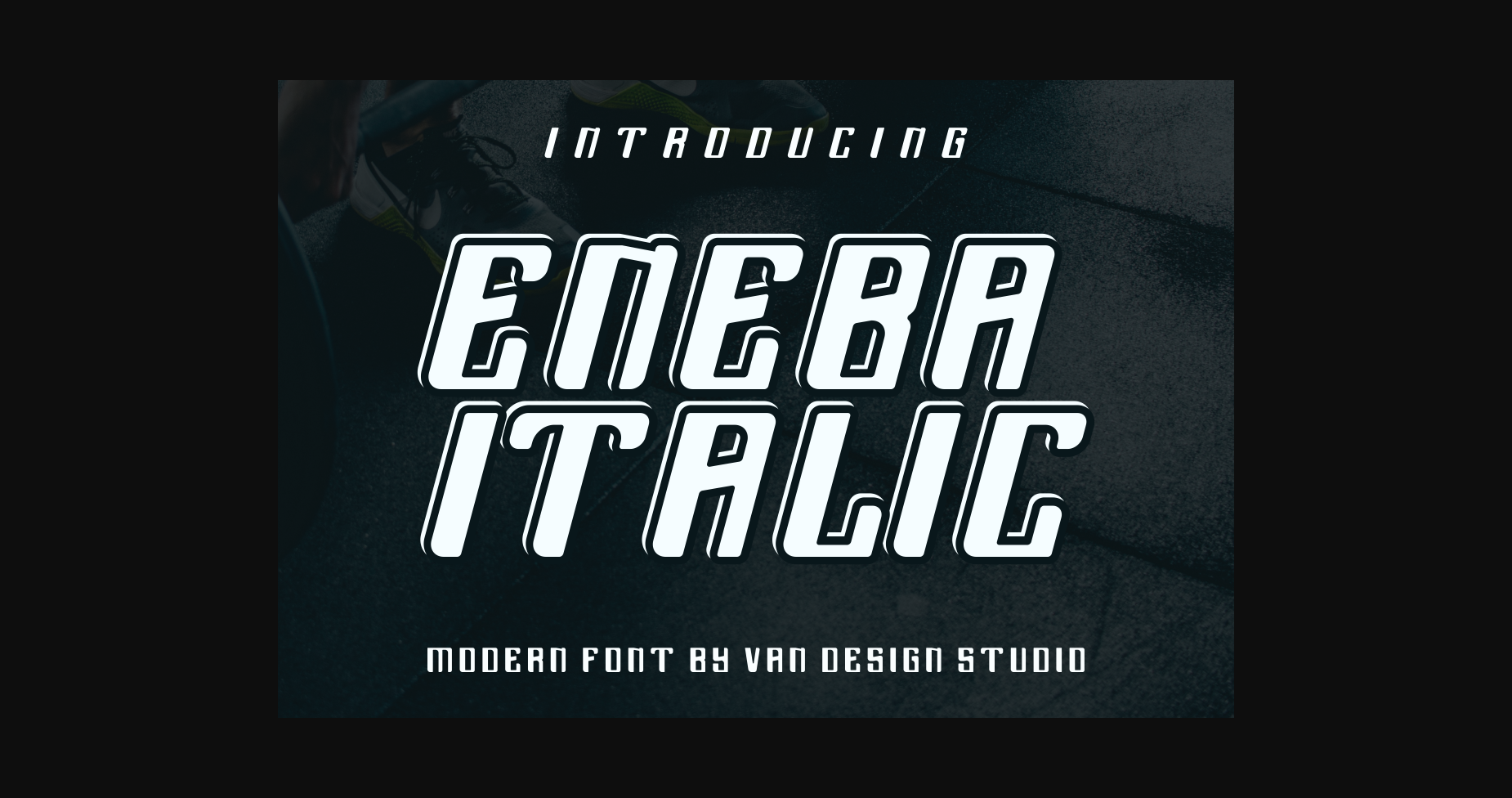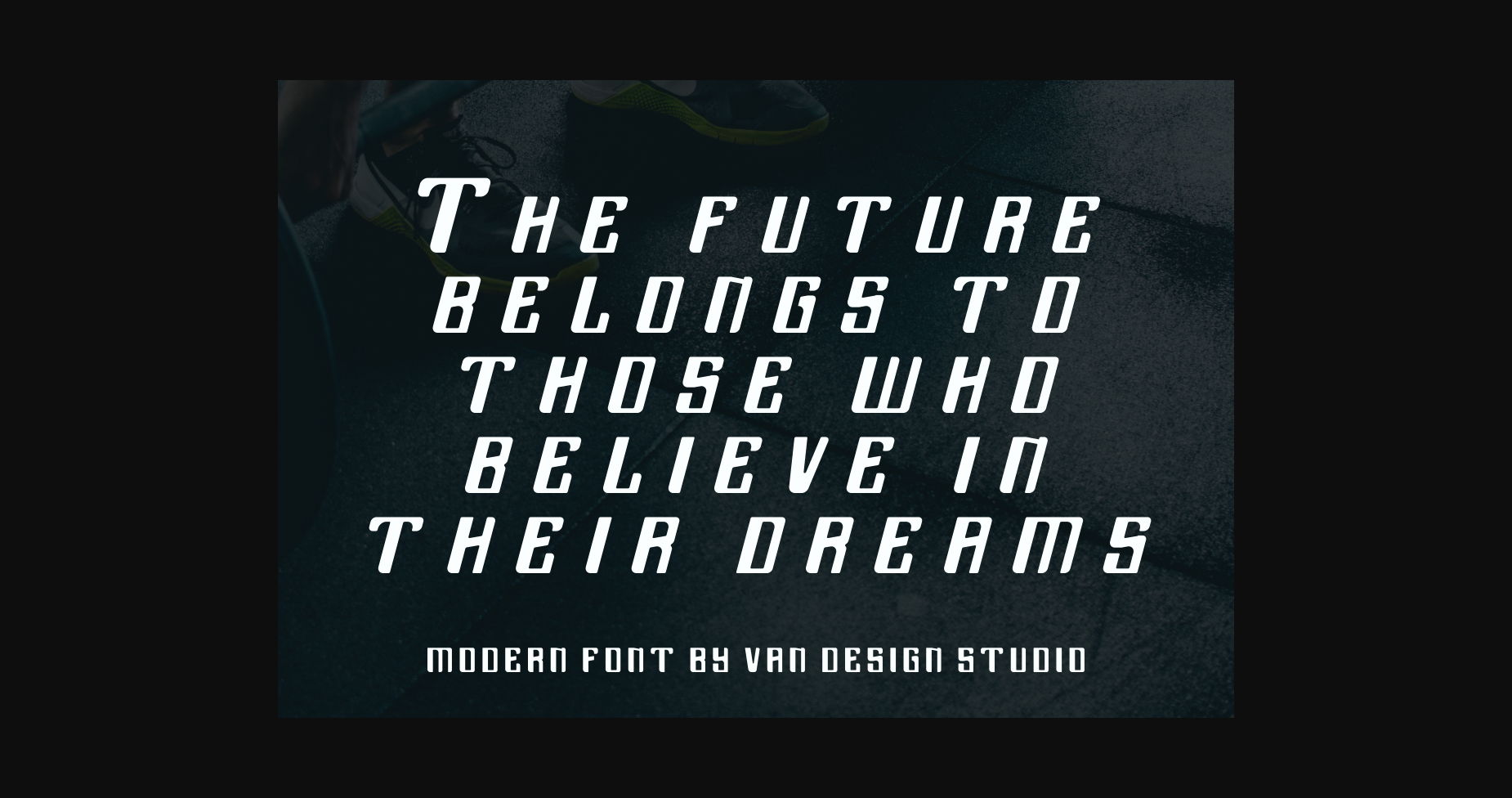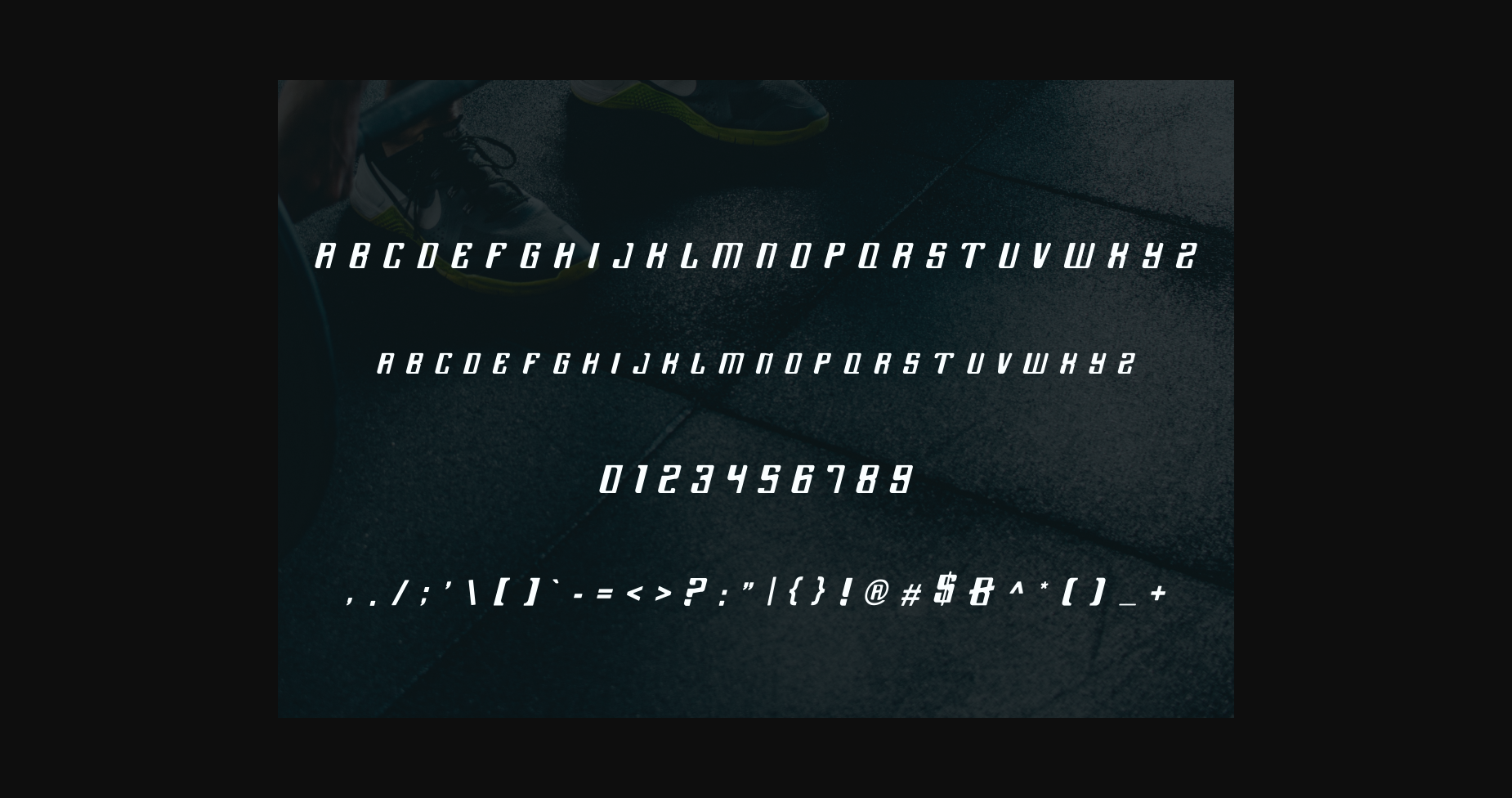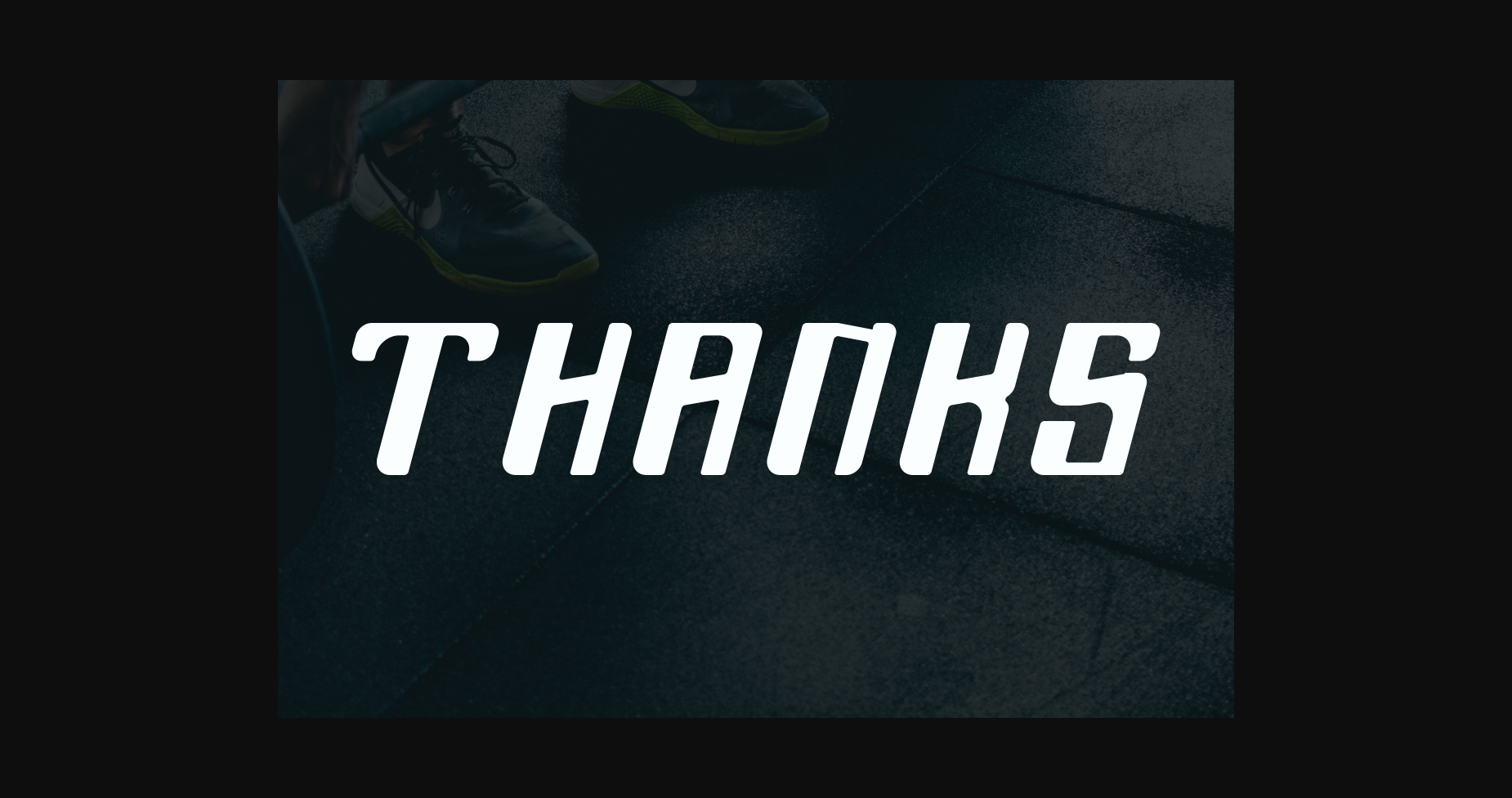
Eneba Italic Font
About Eneba Italic Font
Eneba Italic is a powerful and elegant display typeface, created to make the most of horizontal space. Built from hand-drawn sketches. Our fonts make a strong impression in print, headlines, videos, and social media – whether paired with a contrasting typeface or on their own.